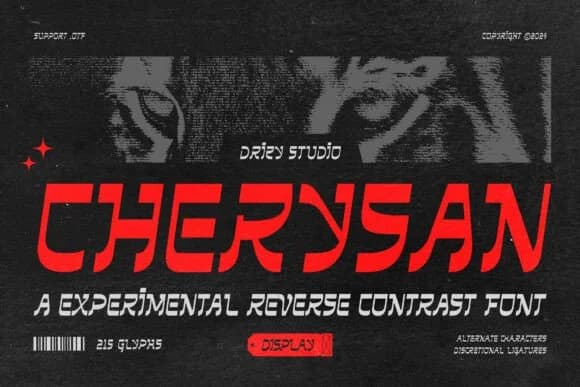
Imagine designing a vinyl sleeve for a rising electronic artist, where every letterform has to command attention in a dark, moody aesthetic. That's where Cherysan from Drizy Studio comes in. This slab-serif typeface features reverse contrast and a pronounced slant that immediately registers as something different, something deliberately raw and uncompromising. The unconventional weight distribution and angular character forms create visual rhythm without leaning on hollow decoration or trend-chasing embellishments. Each letter feels active, almost restless in the best way.
Cherysan excels for specific applications: vinyl record sleeves, techno festival posters, indie music label identity systems, and web3 project branding. The slanted construction gives it forward momentum, while the reverse contrast flips typical serif logic, making it sit comfortably within tribal and futuristic visual languages. Graphic designers working in electronic music, experimental packaging, and digital subcultures find it especially useful for work that needs to feel intentional and unconventional rather than safe. The varied weight range lets you build hierarchy and emphasis across album artwork, underground event promotion, and podcast branding without sacrificing its boldness.
- Sturdy, Confident, Reverse Contrast
Cherysan Font is a slab serif font that shines as a display or heading face. Pair it with a clean sans-serif or serif font for body text — the contrast creates a clear hierarchy while the two styles stay balanced and easy to read.